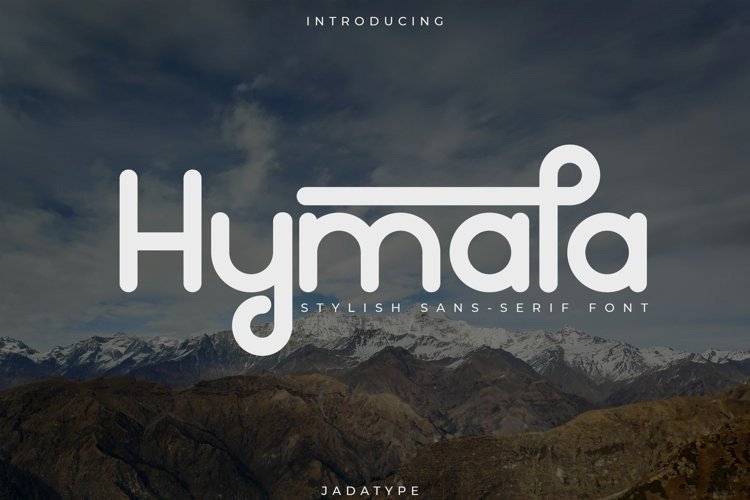
Hymala Font
Introducing Hymala Sans Serif Font is a casual sans-serif Typeface created by jadatype with 3 styles. thin, regular, and bold. coupled with a salt which makes you have more options in designing using the Hymala font. contains standard English letters, and some letters that support multilingual support. Hymala is also easy to install in applications such as Photoshop, Illustrator, or Microsoft Word.